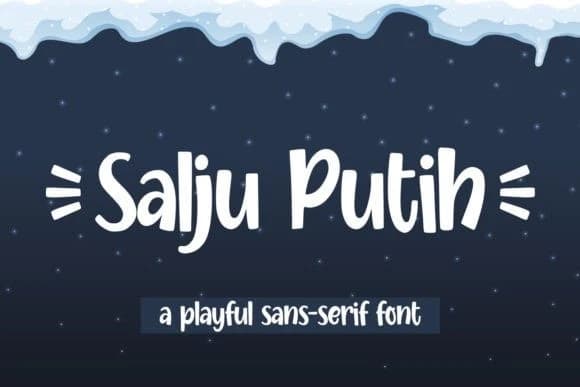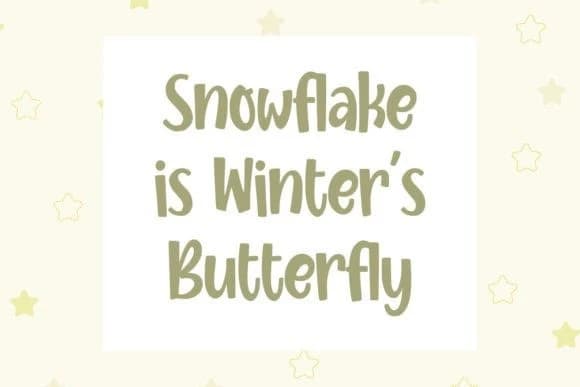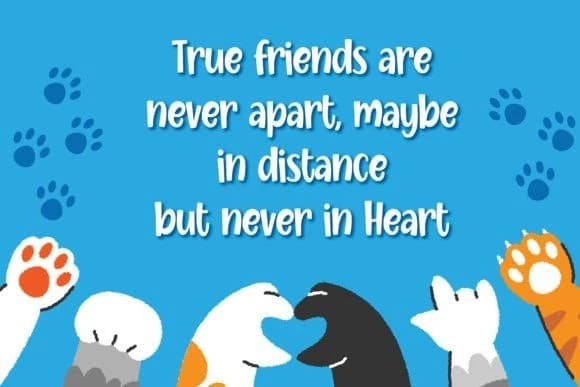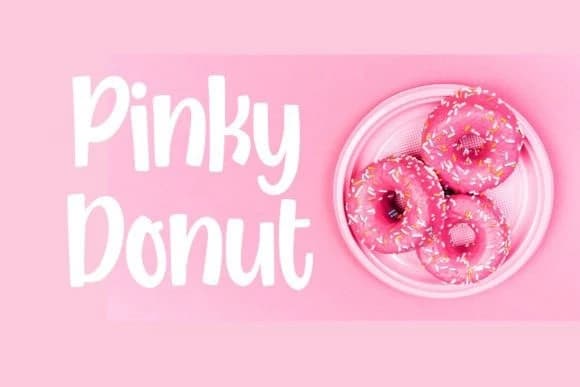
Salju Putih Font
Salju Putih Font is a playful sans serif font inspired by the light, cheerful feeling of white snow. With its clean lines and fun personality, it brings a fresh and lively touch to any design. Perfect for t-shirt graphics, logos, quotes, mugs, tote bags, cards, banners